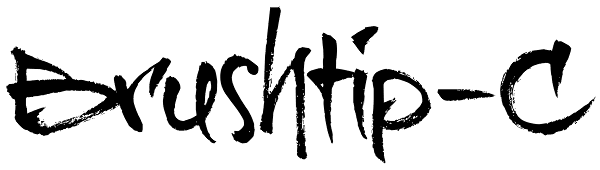
Brushtip-C
Slightly erratic straight up brush tip handwriting script that was written with an ‘intoxicated’ hand, with a lot of very unique characters as a result. The overall font looks wild yet very readable. It includes all eastern European, Baltic...